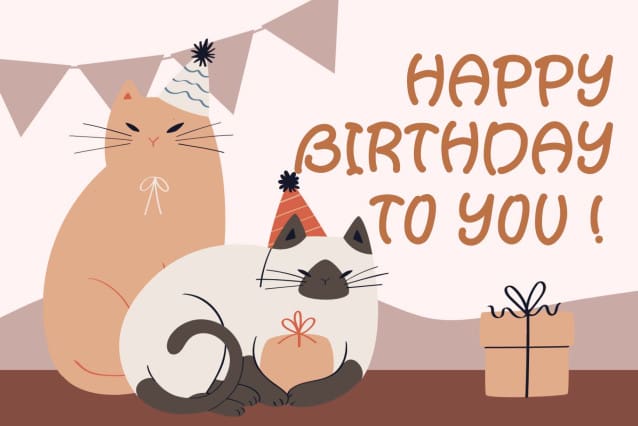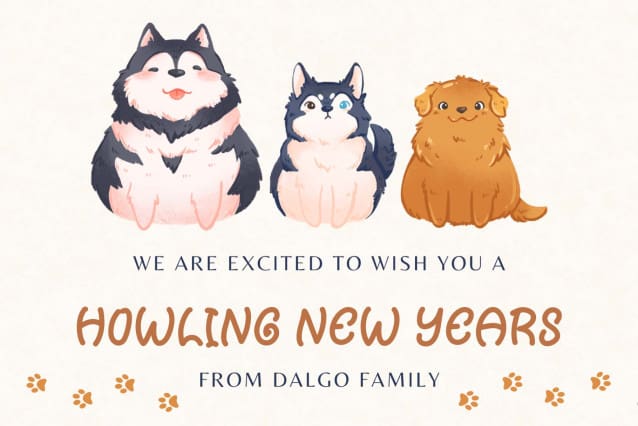
Catty Pillow Font
Catty Pillow Font is a cute and playful display font. This font is equipped with uppercase, lowercase, numerals, punctuation, and multilingual support. Very suitable for posters, logos, children’s toys, banners, stickers, branding, animals, book covers, film titles, and others.